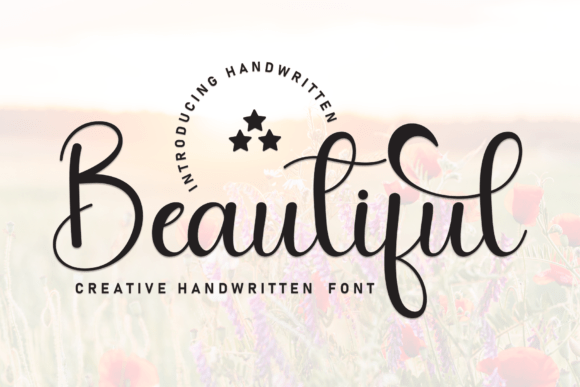
When Words Become Works of Art
Have you ever felt the rush of creativity as you sit down to design a special project, like a wedding invitation or a heartfelt birthday card? The blank page stares back at you, begging for inspiration. That’s when the magic happens – as you start to experiment with different fonts, colors, and textures. But what if you could capture the essence of a handwritten note, infusing it with warmth and style? Enter Beautiful Font, a typographic treasure that brings joy and sincerity to your creative work.
Beautiful Font is a delicate balance of elegance and whimsy, perfect for adding a personal touch to your designs. With its handwritten charm and PUA encoding, this font makes it easy to bring out the stylistic features and extras with just a few clicks. Whether you’re a seasoned designer or a DIY enthusiast, Beautiful Font is a valuable tool that will elevate your projects and leave a lasting impression.
Beautiful Font Key Features
- Unique Characteristics: The font features a unique blend of elegant and modern design elements, with intricate details and subtle flourishes that set it apart from other fonts.
Beautiful Font Review
I have to say, I was immediately drawn to the Beautiful Font when I first saw it. The elegant, cursive style is perfect for any project that needs a touch of sophistication.
- The font’s readability is top-notch, even at smaller sizes.
- The subtle flair on the letterforms adds a nice touch of personality.
- The font family includes a wide range of weights and styles, making it easy to find the perfect match for your project.
- The font may not be the best choice for projects that require a lot of bold, attention-grabbing text.
- The font’s lack of support for certain languages may be a concern for global projects.
Overall, I’m really impressed with the Beautiful Font. It’s a great choice for any project that needs a touch of elegance and sophistication. While it may have some limitations, the benefits far outweigh the drawbacks.
Tips: Use Beautiful Font for headings and titles to add a touch of elegance to your design. Experiment with different font sizes and colors to create visual interest.
Tips: Use Beautiful Font for typography-heavy designs, such as invitations, posters, or brochures. Experiment with different font combinations to create a unique look.
Tips: Use Beautiful Font for presentations, reports, or documents that require a professional and polished look. Experiment with different font sizes and colors to create visual interest.
Beautiful Font is perfect for:
- Corporate branding and marketing materials
- Typography-heavy designs, such as posters and brochures
- Presentations and reports that require a professional look
Alternatives to Beautiful Font
Playfair Display is a luxurious, elegant serif font ideal for high-end branding, packaging, and magazine covers. It’s perfect for adding a touch of sophistication and refinement to your design. Compared to Beautiful Font, Playfair Display is more ornate and has a more dramatic flair, making it suitable for premium and high-end projects.
Montserrat is a modern sans-serif font designed for urban environments. It’s ideal for digital products, apps, and websites that require a clean and minimalist look. Compared to Beautiful Font, Montserrat is more geometric and has a more straightforward feel, making it perfect for modern and tech-savvy projects.
Merriweather is a classic serif font that exudes warmth and elegance. It’s perfect for books, magazines, and other print materials that require a traditional and timeless look. Compared to Beautiful Font, Merriweather is more traditional and has a more subtle feel, making it suitable for projects that require a sense of history and heritage.